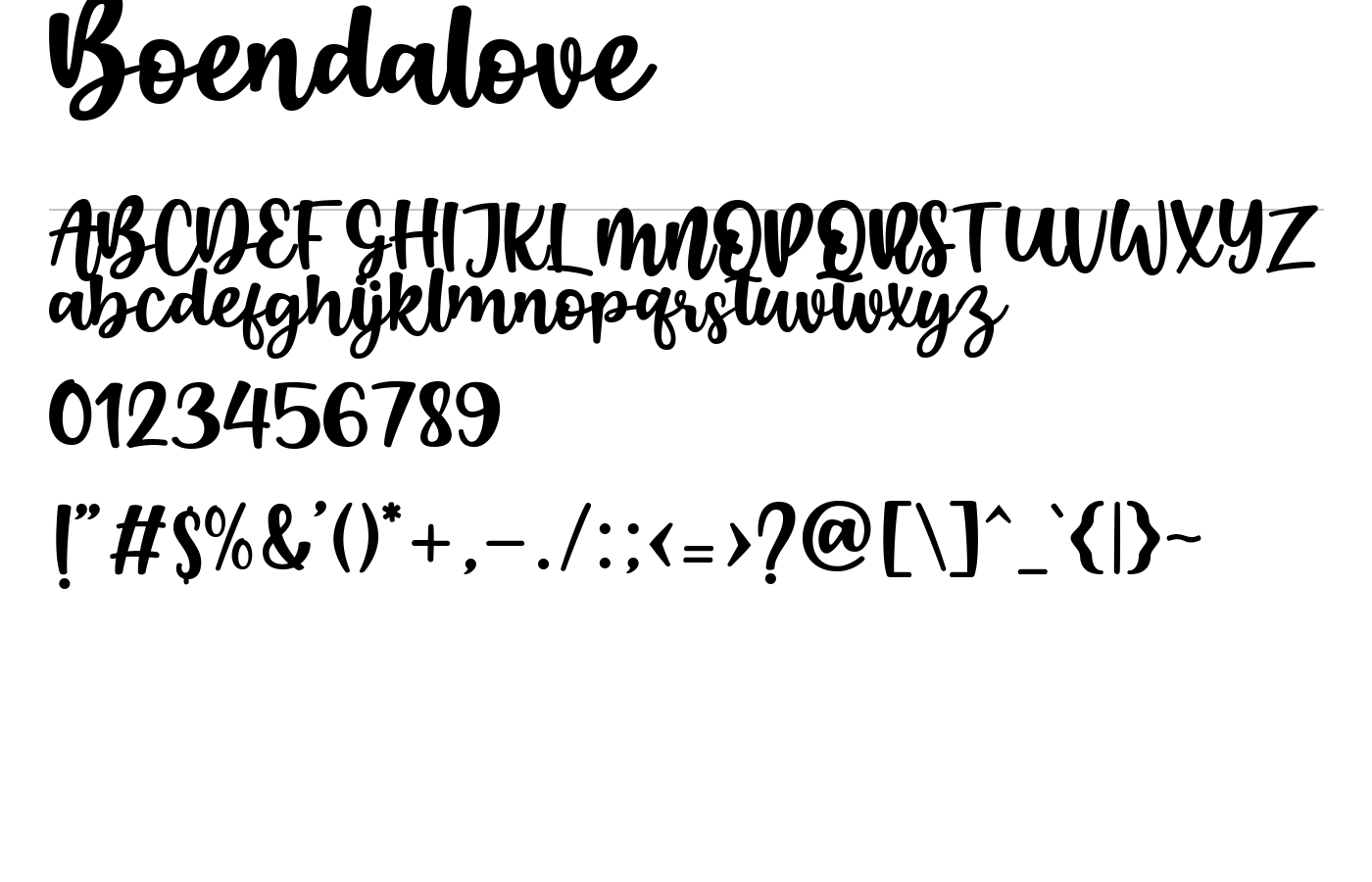
Boendalove is a lively, bold script font with a casual, handwritten feel, featuring smooth, rounded strokes and moderate contrast that make it highly legible yet playful. Its charming letterforms with single-story a and g, as well as a slightly condensed width and upright stance, give it a friendly personality ideal for creative branding, invitations, and expressive headlines. This font works well where warmth and approachability are desired, bringing a personal touch to designs without sacrificing clarity.
Boendalove Font
About Boendalove Font